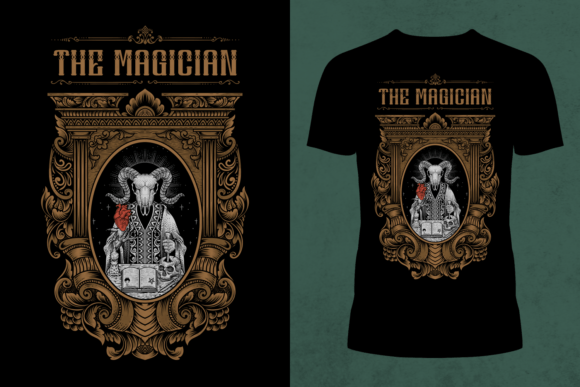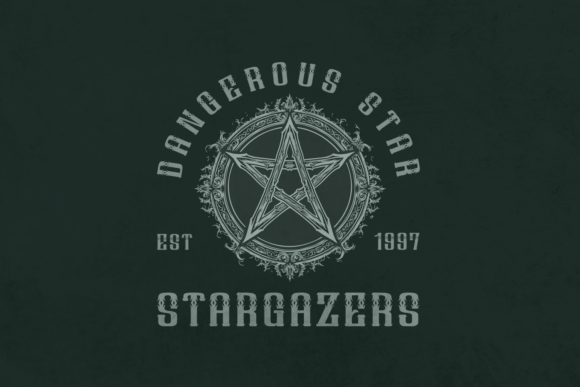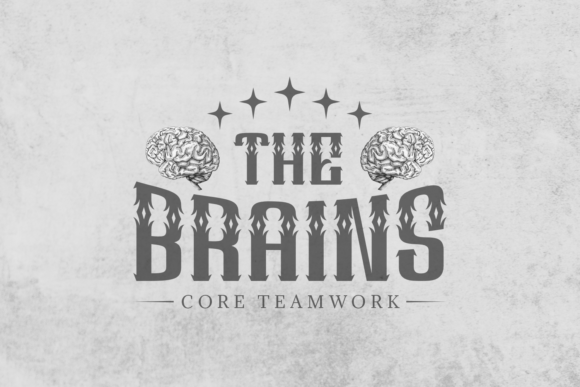
Dacore Font: A Bold Blackletter Typeface Inspired by the Old West
In the world of typography, fonts play a crucial role in conveying the tone and personality of a brand, product, or project. For designers and crafters looking for a typeface that exudes strength, tradition, and adventure, Dacore Font is an excellent choice. This bold blackletter font seamlessly blends the traditional Gothic style with distinctive elements of Western typography, creating a unique and rugged typeface that’s perfect for projects that aim to evoke the spirit of the Old West.
The Origins of Dacore Font
Dacore Font is a result of careful craftsmanship and attention to detail. Its design draws inspiration from the classic Gothic style, characterized by intricate lettering and ornate details. However, what sets Dacore apart is its incorporation of Western typography elements, which add a touch of ruggedness and playfulness to the font. This fusion of styles results in a typeface that’s both dramatic and adventurous, making it ideal for projects that require a bold and eye-catching font.
Key Features of Dacore Font
So, what makes Dacore Font stand out from other typefaces? Here are some of its key features:
- Bold and Dramatic: Dacore Font is a bold blackletter font that’s designed to make a statement. Its dramatic strokes and ornate details make it perfect for headlines, titles, and other applications where you want to grab attention.
- Western-Inspired: The font’s Western typography elements give it a unique and rugged feel, evoking the spirit of the Old West. This makes it ideal for projects related to cowboy culture, western-themed designs, and outdoor adventures.
- Traditional Gothic Roots: Dacore Font’s Gothic roots provide a sense of tradition and heritage, making it suitable for projects that require a classic and timeless feel.
- Highly Versatile: Dacore Font is highly versatile and can be used for a wide range of projects, from logos and branding to posters, flyers, and digital media.
Use Cases for Dacore Font
Dacore Font is a versatile typeface that can be used in various contexts. Here are some use cases where Dacore Font shines:
- Logos and Branding: Dacore Font is perfect for creating bold and memorable logos that evoke strength and tradition.
- Western-Themed Designs: The font’s Western-inspired elements make it ideal for designing western-themed posters, flyers, and brochures.
- Outdoor and Adventure Projects: Dacore Font’s rugged and adventurous feel makes it suitable for projects related to outdoor activities, such as hiking, camping, or extreme sports.
- Historical and Cultural Projects: The font’s traditional Gothic roots and Western typography elements make it a great choice for projects that require a classic and timeless feel, such as historical documentaries or cultural events.
Tips for Using Dacore Font
To get the most out of Dacore Font, here are some tips to keep in mind:
- Use it Boldly: Dacore Font is a bold font, so use it boldly! It’s perfect for headlines and titles where you want to make a statement.
- Experiment with Colors: Dacore Font looks great in bold colors, so don’t be afraid to experiment with different hues and shades.
- Pair it with Other Fonts: Dacore Font can be paired with other fonts to create a unique and interesting contrast. Try pairing it with a serif font for a classic look or a sans-serif font for a modern feel.
Dacore Font is a unique and rugged typeface that blends the traditional Gothic style with distinctive elements of Western typography. Its bold and dramatic strokes, ornate details, and highly versatile nature make it perfect for projects that aim to evoke strength, tradition, and adventure. Whether you’re a designer or crafter looking for a font that makes a statement, Dacore Font is an excellent choice. So, go ahead and give it a try – you won’t be disappointed!